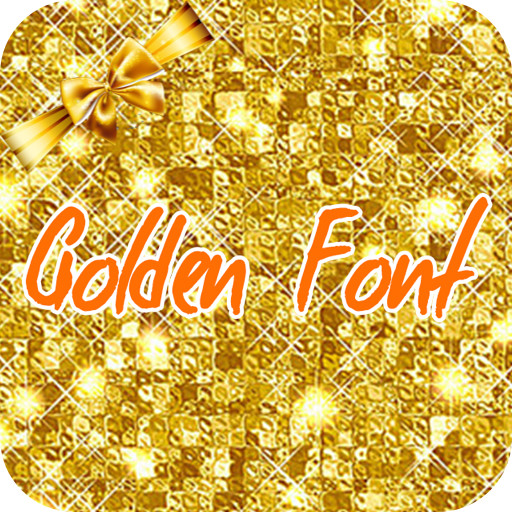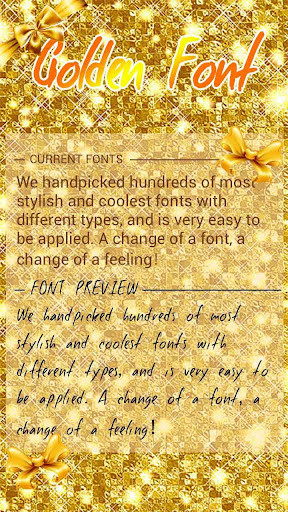
Golden allows all users to change the system font of your phone or tablet .
Please enjoy the pack of Fonts for Android FlipFonts to provide you the ability to change your devices typeface for free.
You can find the amazing and perfect font style which fits your taste well.
Change your entire phone font into Golden.
Come and experience the customized font for you.
The feature of Golden is compatible ability.
Lovely, sweet and colorful as you wish.
Hundreds of selected fonts style from handwritten fonts like Golden, such as cute, darker, comic, galaxy, love, pink, sexy written, colorful fonts, clean fonts, candy fonts, etc.